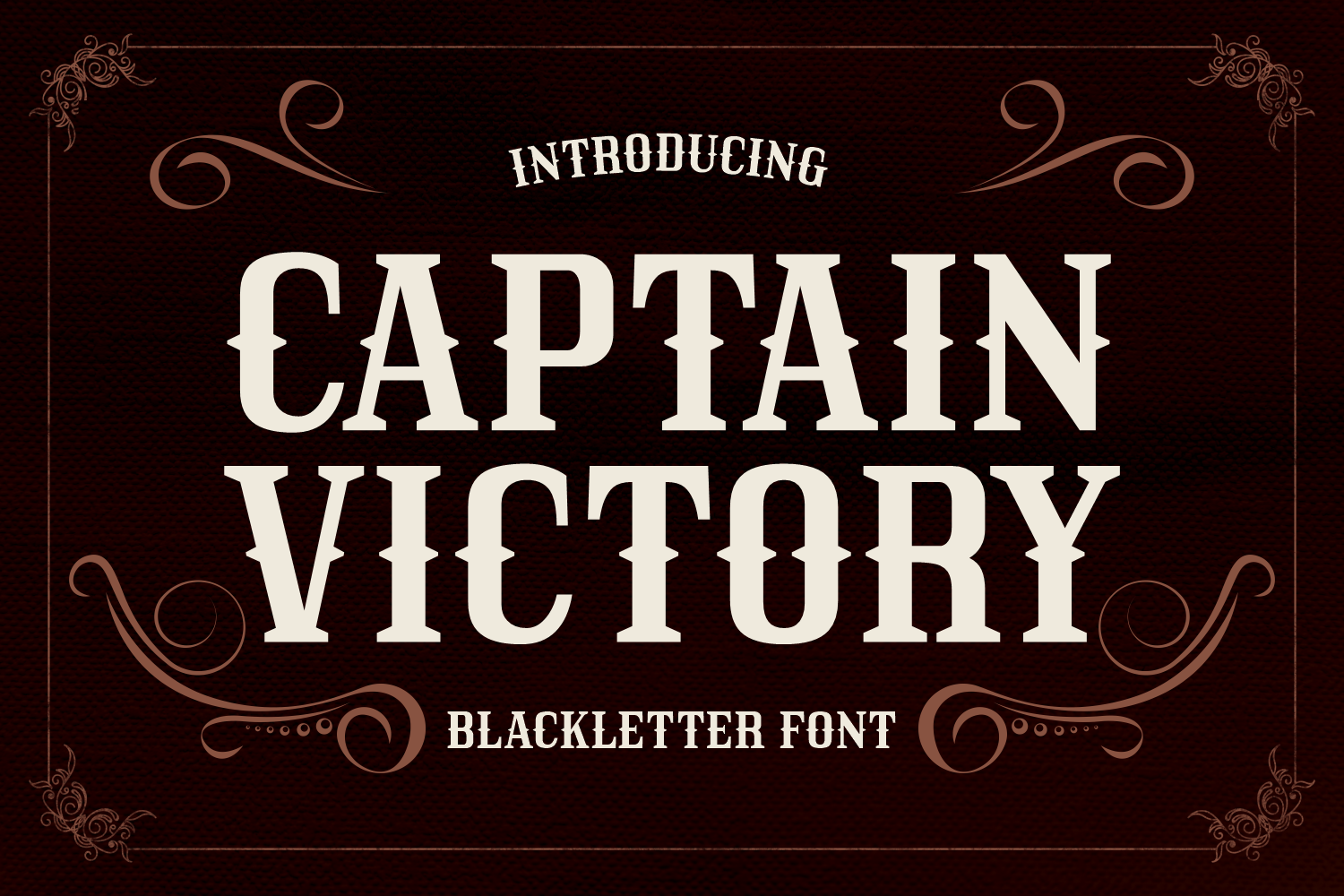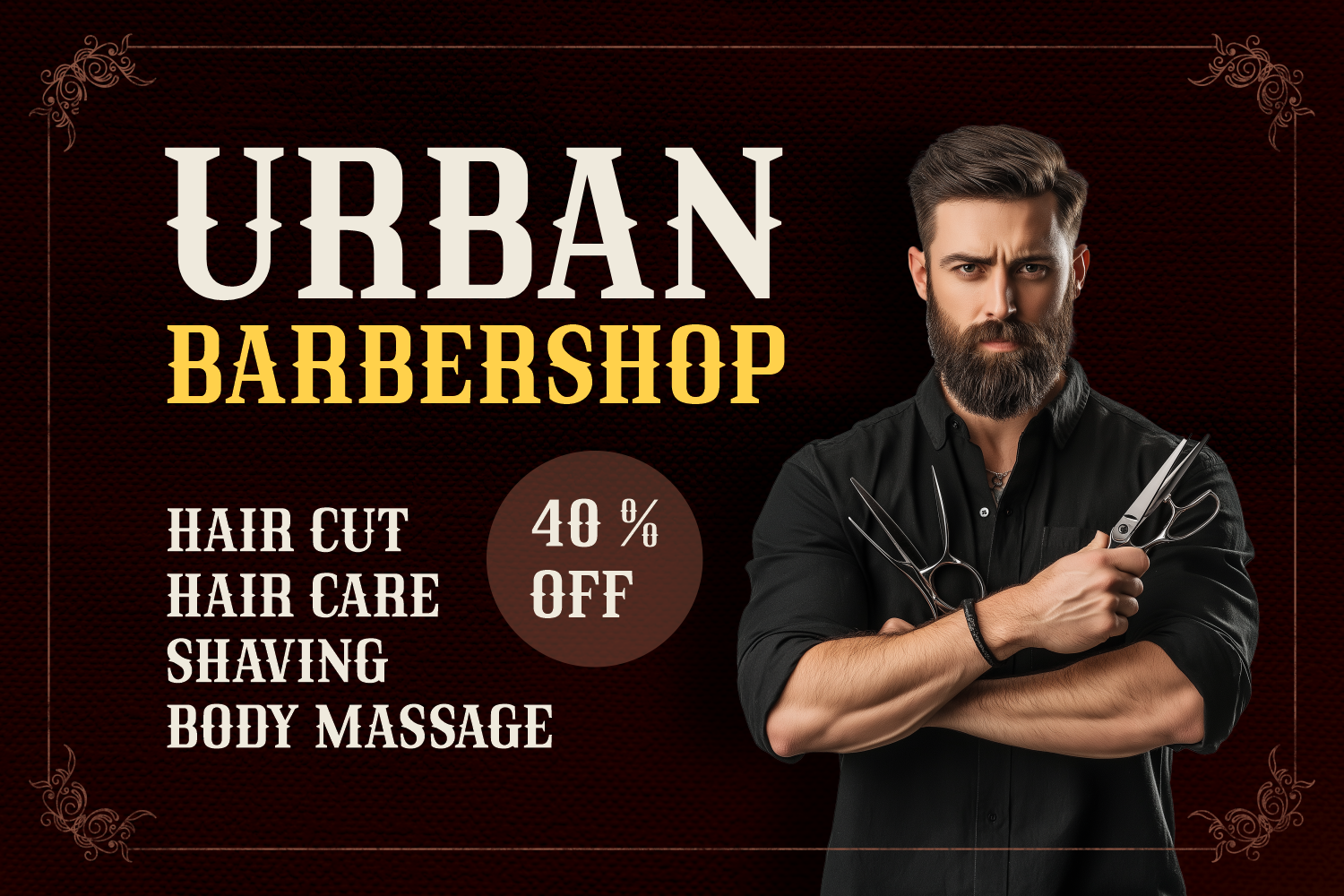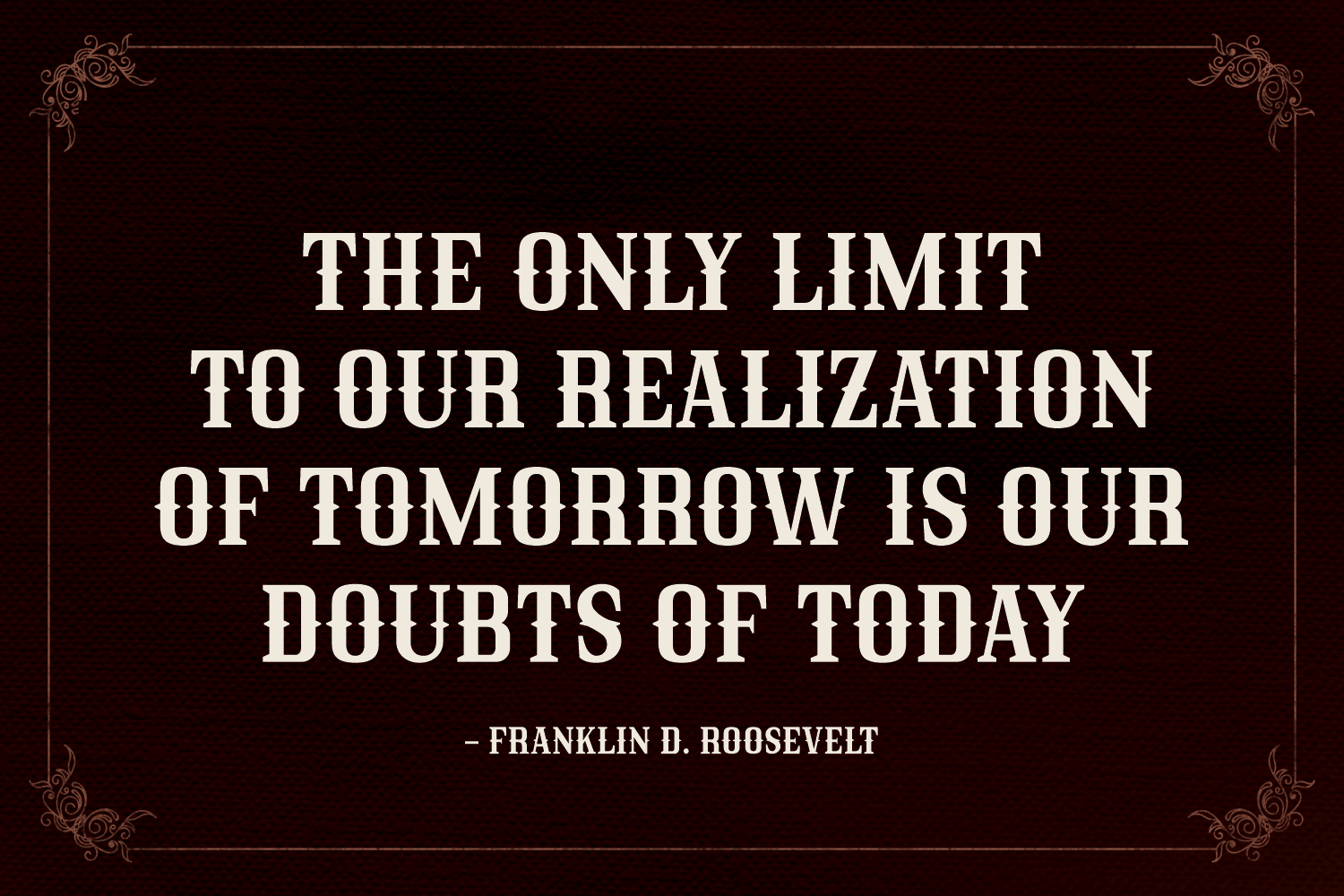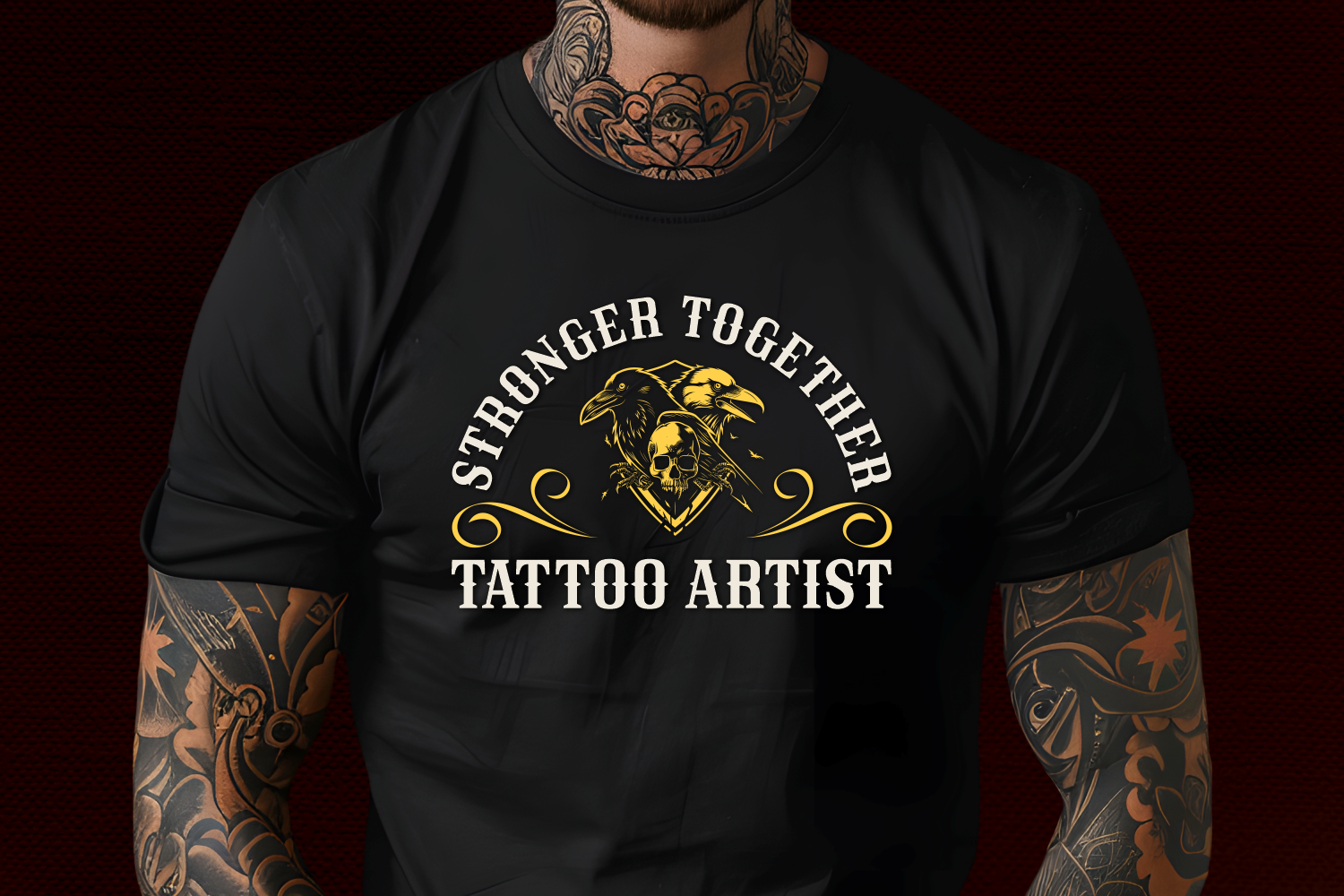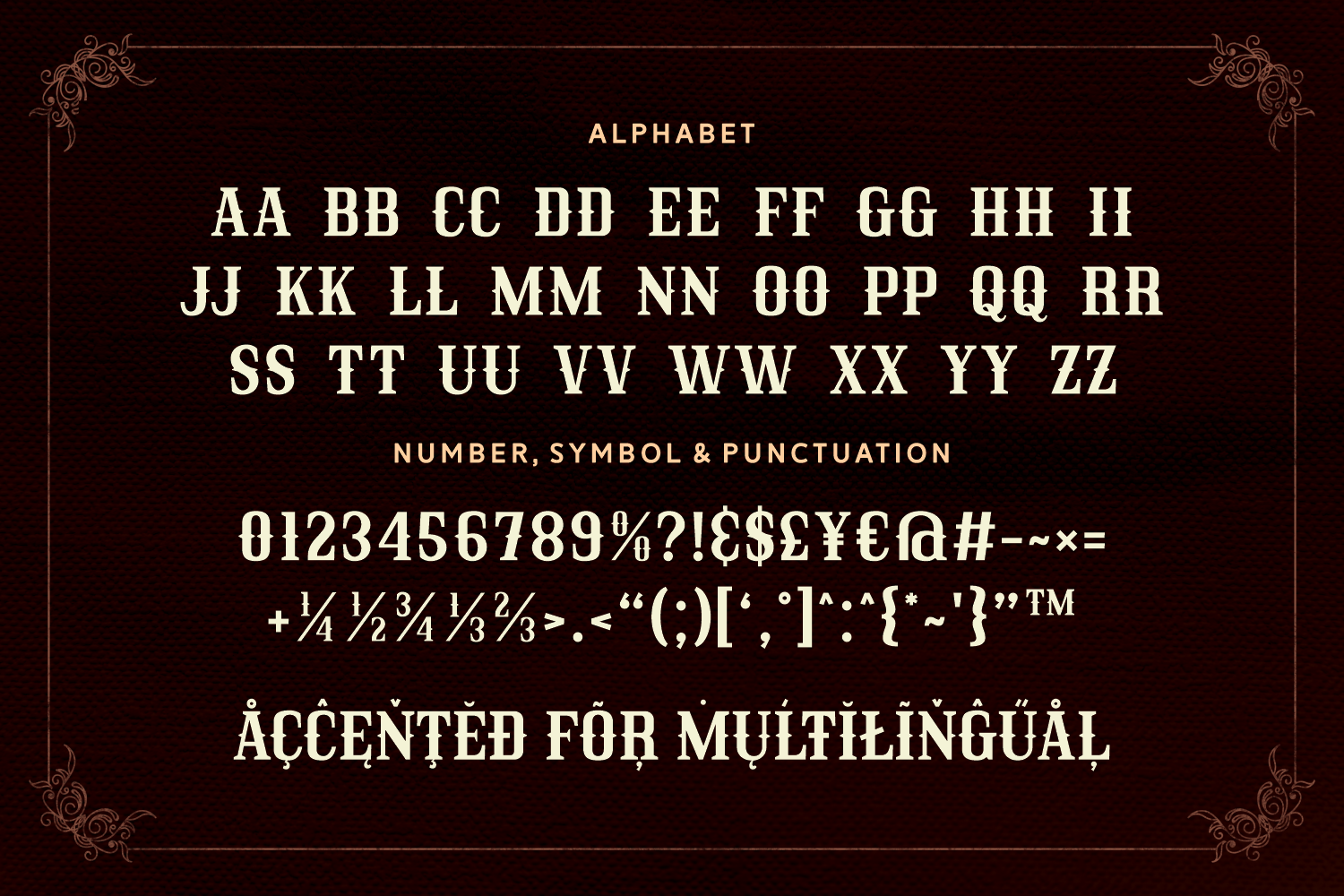
Captain Victory brings bold character to the blackletter tradition with strong letterforms and a touch of Western charm. This typeface is made for vintage-inspired posters, old-world signage, and heroic branding. Its commanding presence and ornamental details give it timeless impact.